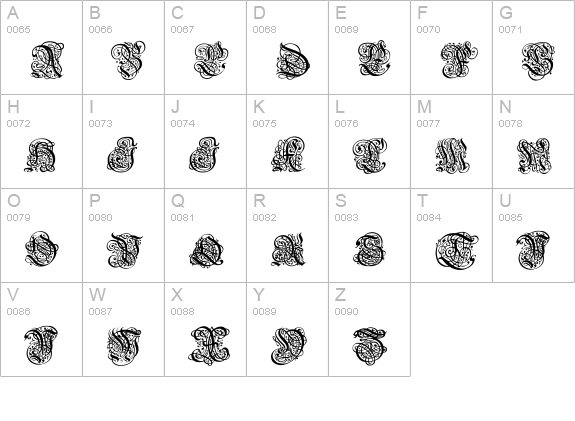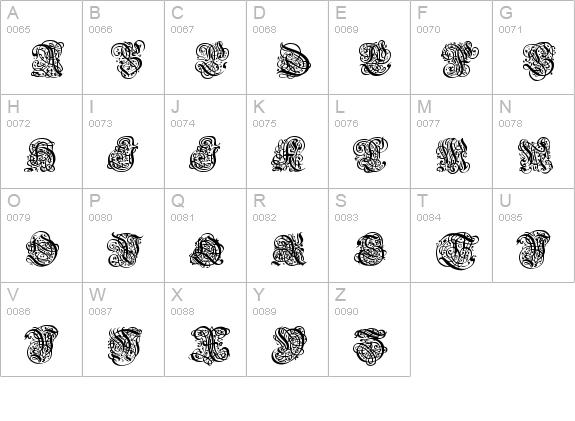
Barock Font Details
Barock font is an elegant and sophisticated typeface that exudes a sense of timeless beauty and refinement. Its intricate details and ornate design make it perfect for adding a touch of luxury to any project. The flowing curves and delicate serifs of Barock font give it a classic and regal feel that is sure to captivate any audience. The best part about Barock font is that it is available for free download at FontsMarket.com. This means that you can easily add this exquisite typeface to your collection without any cost. Whether you are working on a branding project, wedding invitations, or any other creative endeavor, Barock font will elevate your design with its graceful style and charm. Don't miss out on the opportunity to enhance your projects with the beauty of Barock font. Download it for free today and bring a touch of sophistication to your designs.